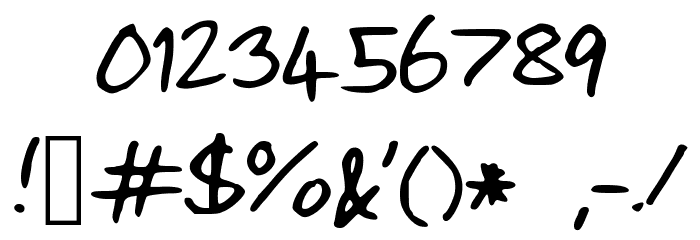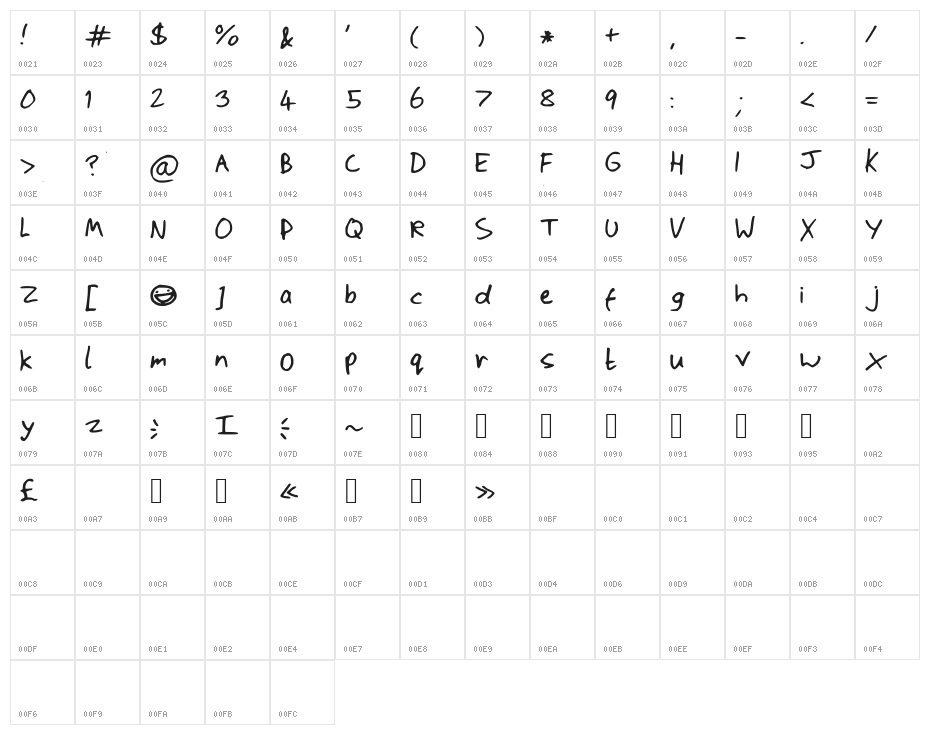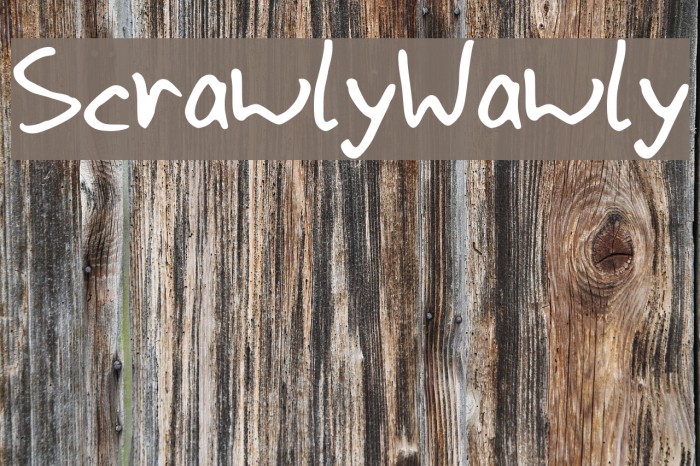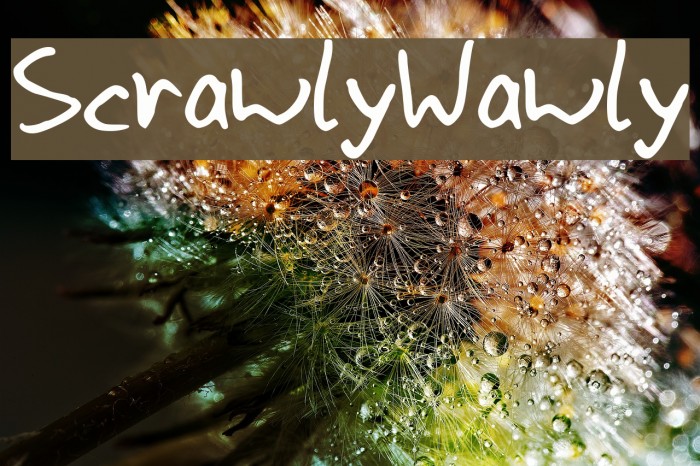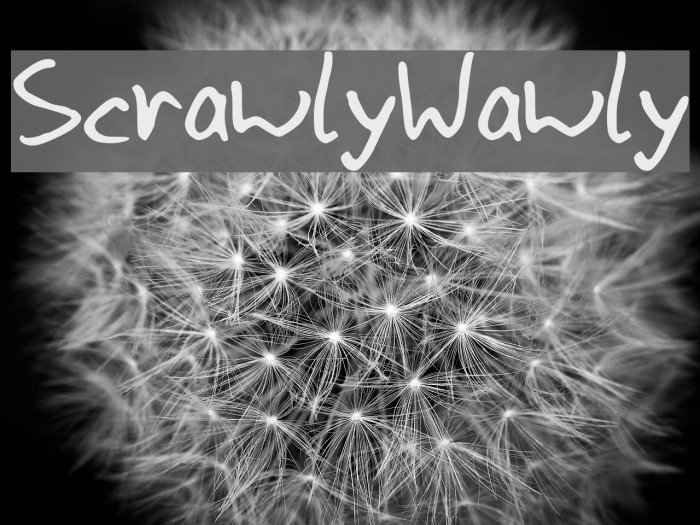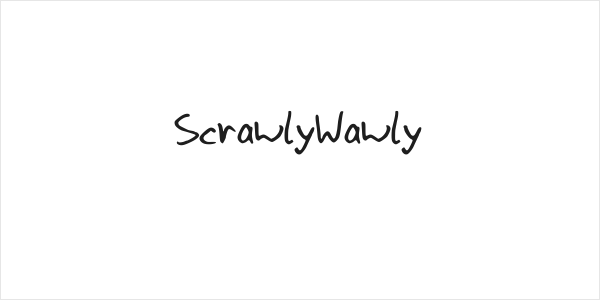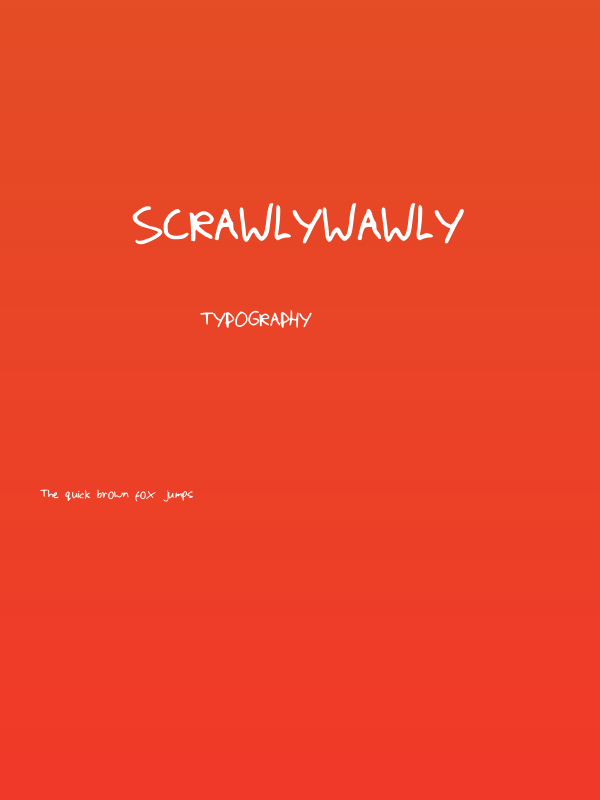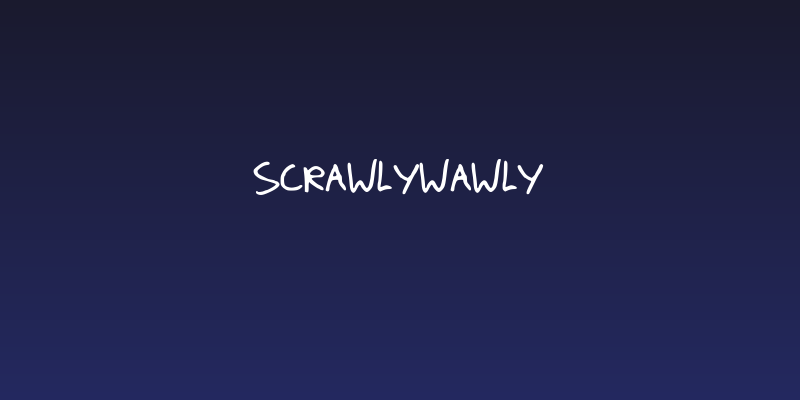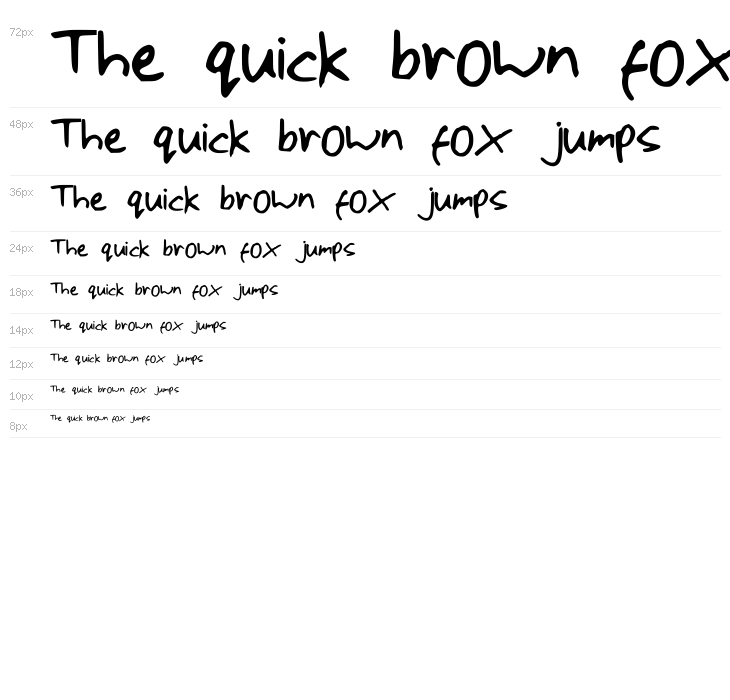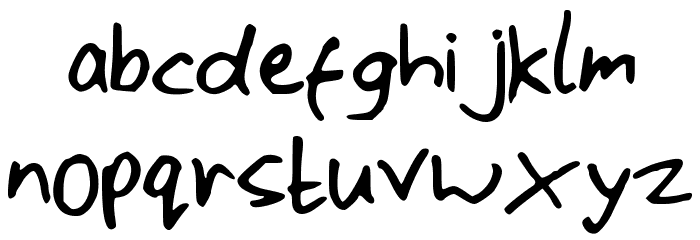
ScrawlyWawly Font
ScrawlyWawly Description
This font features a playful and casual handwritten style, characterized by its uneven strokes and organic flow. The letters have a natural, freeform appearance, giving it a personal touch reminiscent of quick, informal handwriting. The uppercase and lowercase letters maintain a consistent style, with rounded edges and varying line thickness that add to its charm. The numerals and special characters follow the same informal aesthetic, making the font suitable for creative and relaxed designs. Its overall look is approachable and friendly, ideal for projects that require a personal or whimsical touch.
| Proposed Projects | Greeting cards, personal blogs, children's books, casual invitations, and creative social media graphics. |